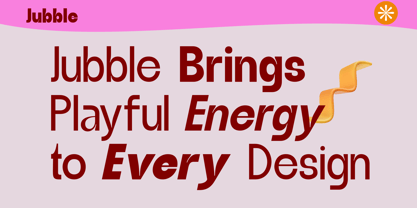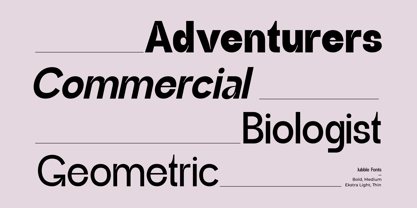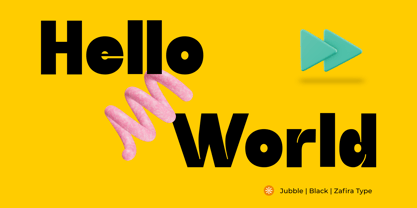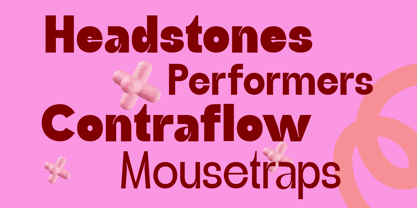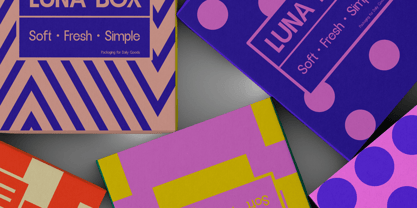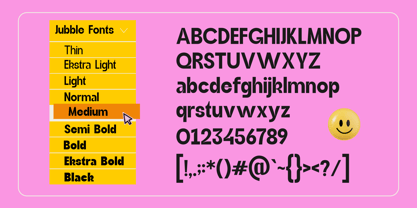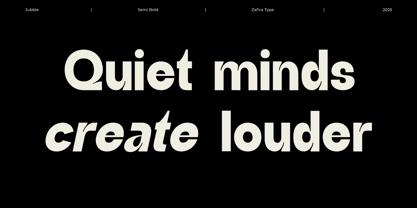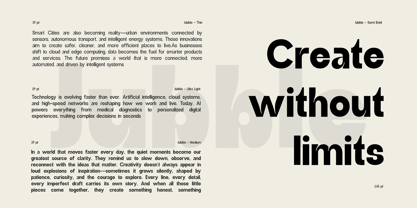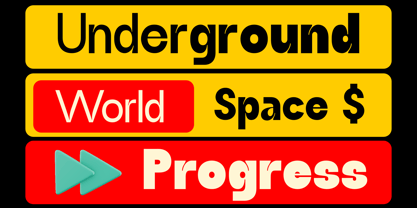
Jubble
by Zafira Type
The Jubble Font Family was designed by Su Hirno and published by Zafira Type. Jubble contains 18 styles and family package options. More about this family
Jubble Font Family – Soft Modern Sans From Thin to Black Discover Jubble, a complete modern sans serif family designed with smooth curves and clean geometry. Its rounded shapes bring a friendly, approachable personality, while its precise structure keeps every weight looking sharp, contemporary, and highly versatile. With weights ranging from Thin to Black, Jubble gives you full creative flexibility — whether you need elegant light text, balanced regular paragraphs, or bold, standout headlines. Each weight is crafted to maintain clarity, consistency, and a warm modern character across all sizes. Perfect for branding, logos, packaging, web interfaces, editorial layouts, and any project that needs a modern, soft, and memorable typographic voice. Key Features: • Full family: Thin, Extra Light, Light, Regular, Medium, SemiBold, Bold, Extra Bold, Black • Rounded and friendly modern aesthetic • Clean shapes for clear readability • Great for both display and paragraph use • Perfect for branding and professional design projects Bring modern warmth and smooth simplicity to your visuals with the complete Jubble Font Family.